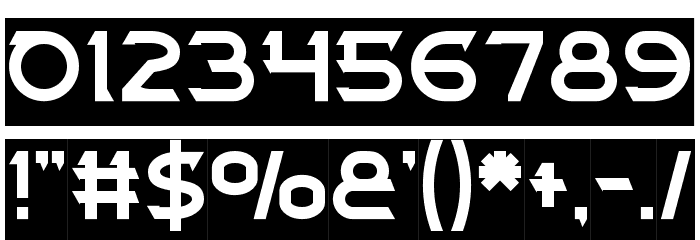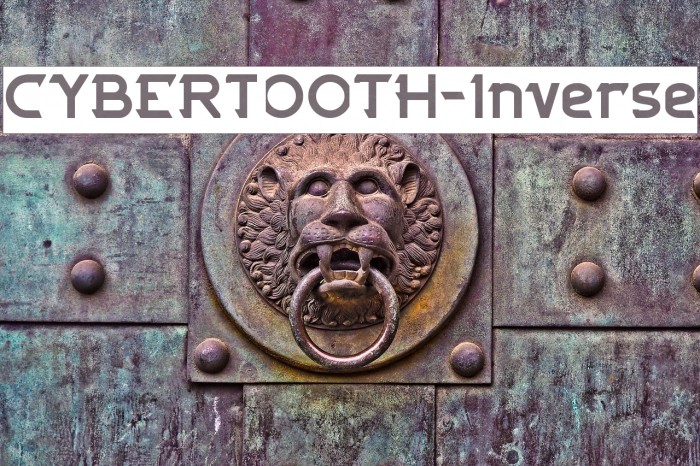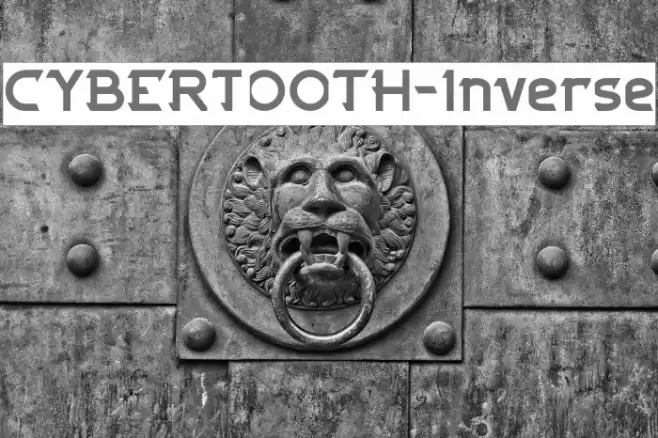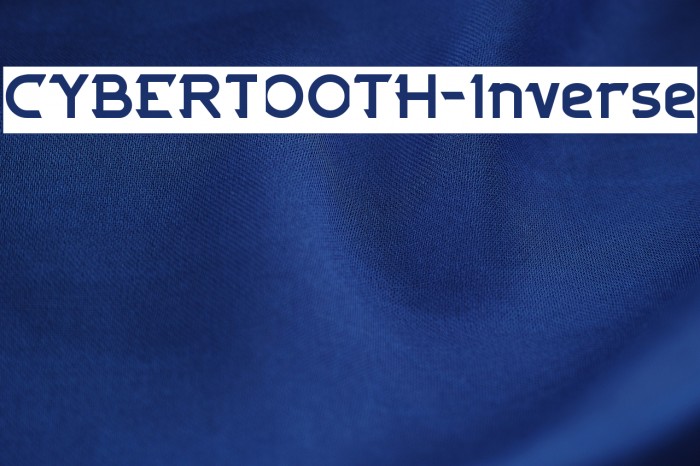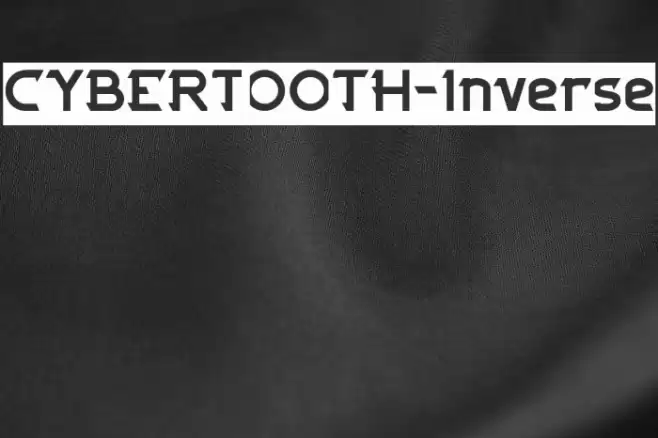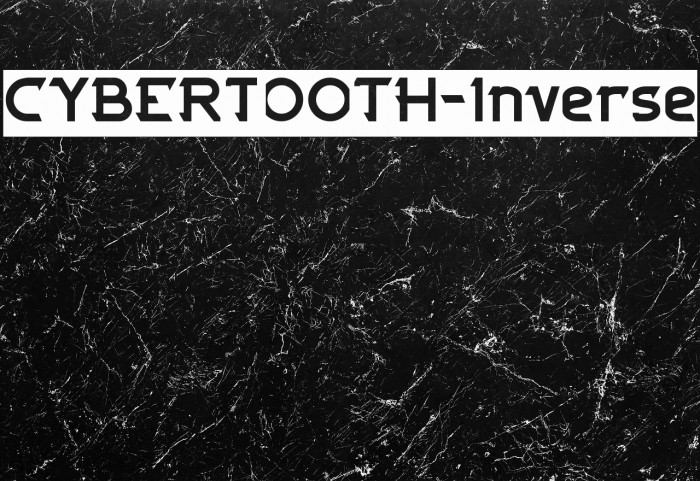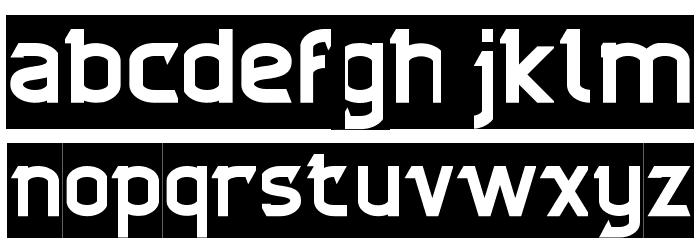
CYBERTOOTH-Inverse Font
CYBERTOOTH-Inverse Description
This font features a bold and futuristic design with sharp, angular edges and a geometric structure. The uppercase letters are particularly striking, with unique cuts and angles that give them a dynamic and aggressive appearance. The lowercase letters maintain a similar style, ensuring consistency across the typeface. The numerals are equally bold, with a modern aesthetic that complements the overall design. Special characters are included, maintaining the same angular and futuristic style. This font is ideal for projects that require a strong, modern, and tech-inspired look.
| Proposed Projects | Ideal for tech branding, video game titles, sci-fi movie posters, and digital media. |